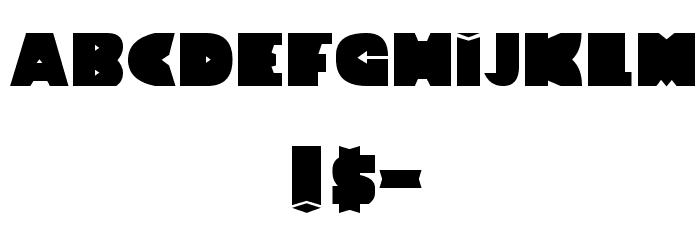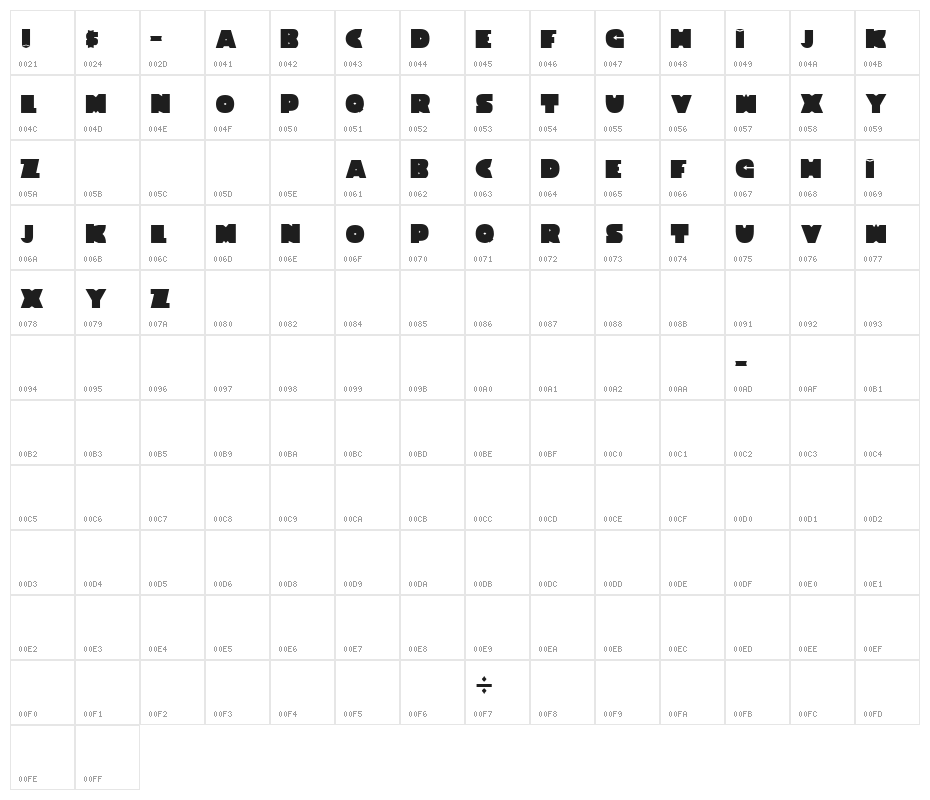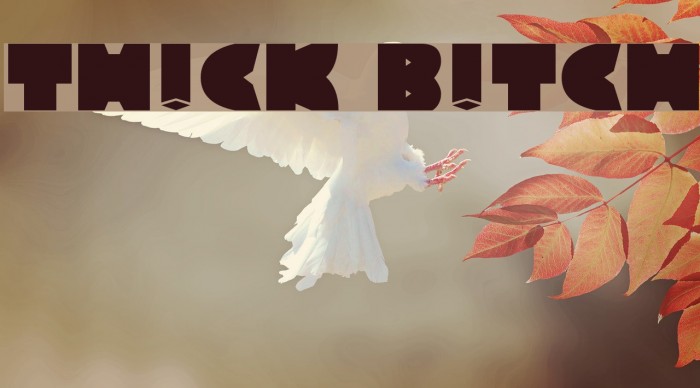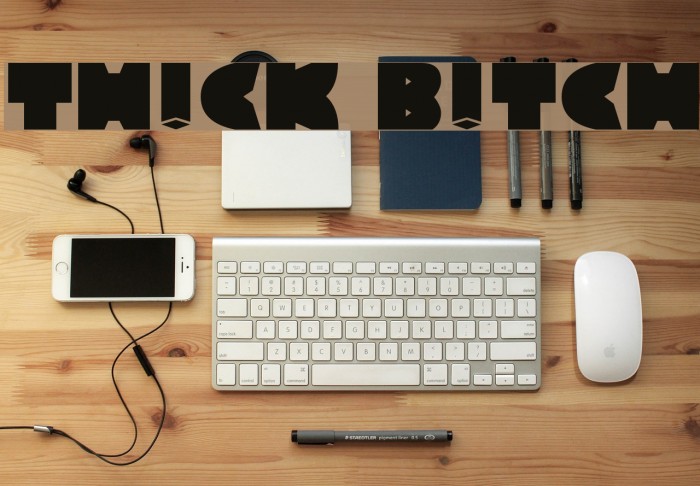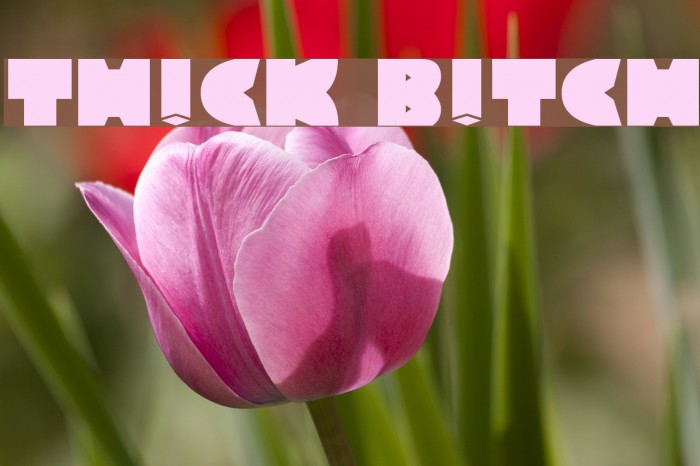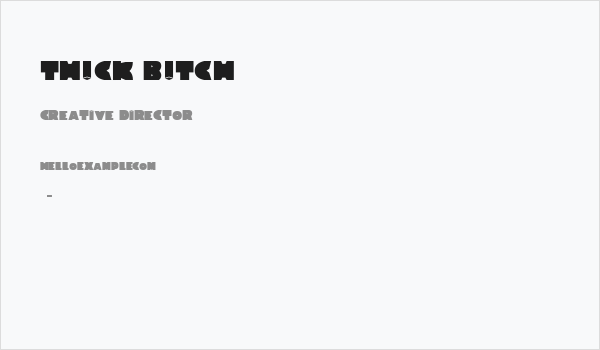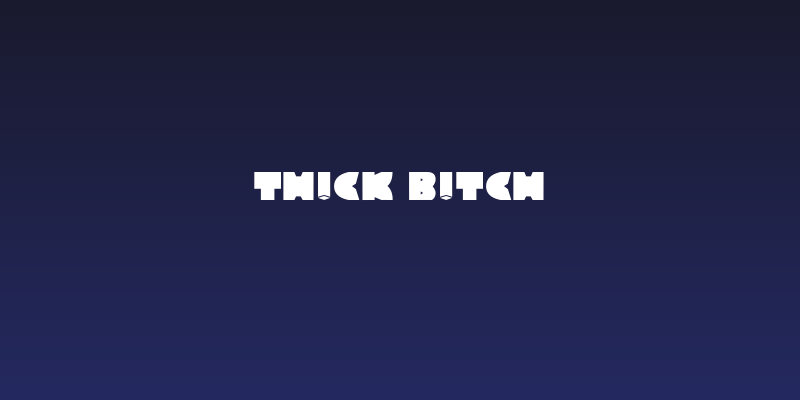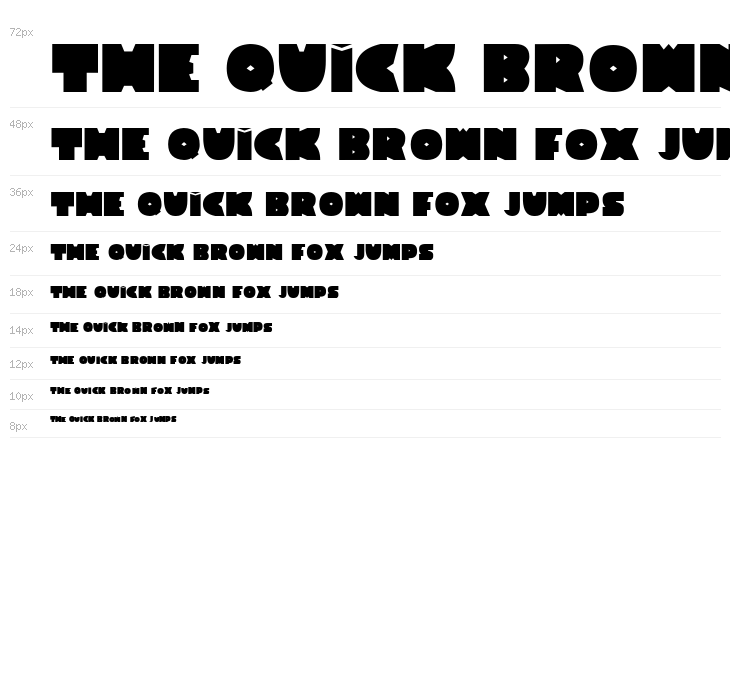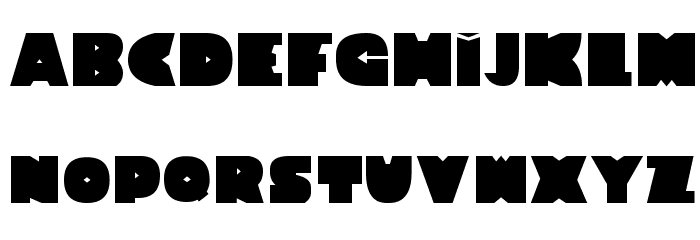
TH!CK B!TCH Font
TH!CK B!TCH Description
This bold, geometric font features a highly stylized and modern design with thick, blocky characters. The uppercase letters are uniform in height, with sharp angles and unique cutouts that give each letter a distinct appearance. The font's weight is heavy, making it ideal for impactful headlines or titles. Its wide character spacing and consistent stroke thickness contribute to its strong visual presence. The absence of lowercase letters and the inclusion of a few special characters suggest a focus on display use rather than body text.